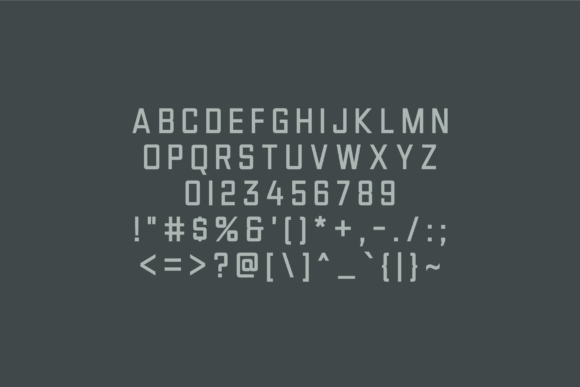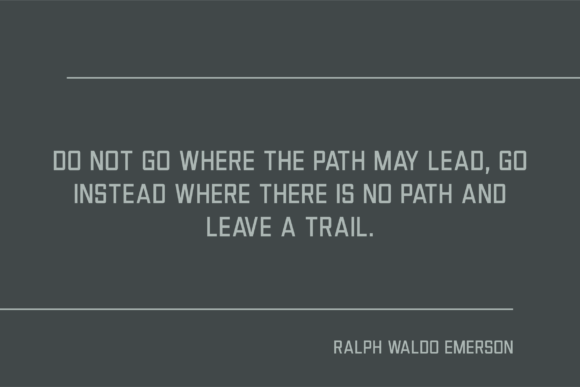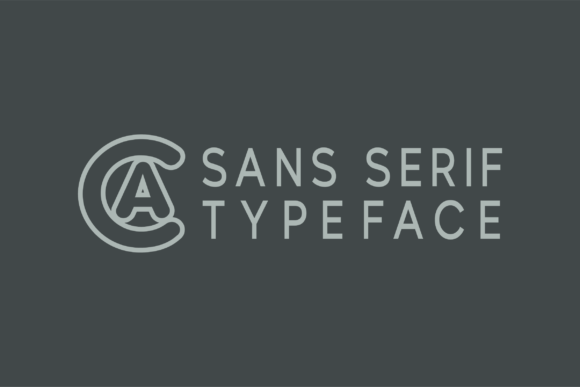
Introducing Diomedes Font: The Epitome of Modern Elegance
In the world of typography, a new star has emerged, shining brightly with its modern elegance and versatility. Meet Diomedes, a sans serif typeface that is redefining the way we approach design. With its clean lines, sophisticated aesthetic, and wide range of applications, Diomedes is quickly becoming the go-to choice for designers and crafters alike.
The Features of Diomedes Font
Diomedes is more than just a pretty face. This contemporary marvel comes equipped with a comprehensive set of features that make it an incredibly versatile font. Some of its key features include:
- Uppercase characters: Perfect for headings, titles, and emphasis.
- Numerals from 0 to 9: Ideal for creating lists, prices, and other numerical data.
- Punctuation marks and symbols: Essential for adding clarity and personality to your text.
The Versatility of Diomedes
The true strength of Diomedes lies in its adaptability. This font can be used in a wide range of applications, from:
- Captivating Logos: Create a lasting impression with a custom logo that exudes sophistication and style.
- Wedding Invitations: Add a touch of elegance to your special day with beautifully designed invitations.
- Inspiring Quotes: Make your quotes stand out with a font that is both modern and refined.
- Eye-Catching Advertisements: Grab attention and drive results with ads that feature the clean, crisp lines of Diomedes.
Suitable for Both Print and Digital Media
Diomedes is not just limited to digital media. Its refined aesthetic makes it an excellent choice for print media as well. Use it in:
- Magazine Layouts: Add a touch of sophistication to your magazine with a font that is both modern and elegant.
- Brochures: Create a lasting impression with brochures that feature the clean lines and refined aesthetic of Diomedes.
- Posters: Make your posters stand out with a font that is both bold and refined.
Why Choose Diomedes?
So, why should you choose Diomedes for your next design project? Here are just a few reasons:
- Unique and Modern: Diomedes offers a fresh take on sans serif typography, making it perfect for designers looking for something new and exciting.
- Highly Versatile: With its wide range of applications, Diomedes is an excellent addition to any designer’s toolkit.
- Easy to Read: The clean lines and simple shapes of Diomedes make it easy to read, even at small sizes.